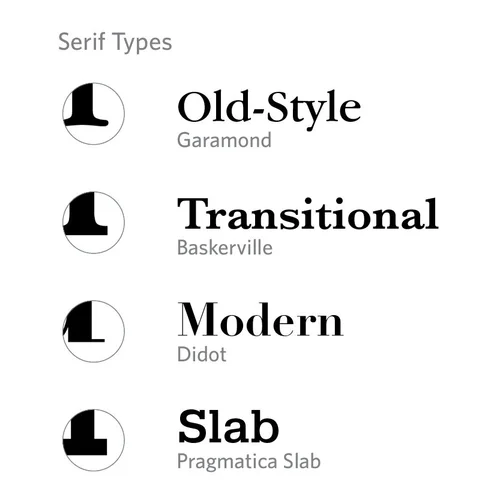
Font Combination: A Guide To Pairing Fonts For Your Designs
When you look at a logo, what’s the first thing you notice about its design? Probably the color and the font style.
And how well the brand name reads, how beautifully the text supplements the symbol in the logo, all depend on the font style used in the logo.
In short, everything, from the first impression a design creates to how memorable the design remains, depends on the chosen font style.
But, here’s the catch. Every font style has a character of its own. So, when you have to pick a combination of two or more fonts, you should be careful so that the overall impact is as intended.
That brings us to a burning question in the world of graphic design: “How do you combine fonts for a design project?”
But before that let’s get the terminology straight.
Typefaces, Fonts, and Typography
We might end up using the terms typeface, font and typography interchangeably but they mean very different things. And understanding the differences makes it easier for non-designers to communicate with designers.
Add to that, 74% of marketers use visuals in more than 70% of the content they use for marketing. And these visuals often contain both text and imagery. While the imagery is used to draw attention and make an emotional connection, the text supports the imagery and makes sure that messages are communicated clearly.
So, to be sure that you choose the right fonts and font combinations to establish the message of your design, let’s talk about some fundamental terms.
Typeface
“Typeface” refers to the shapes and styles of each alphanumeric character. And within typefaces, you can have classifications like serif, sans-serif, script, and decorative.
1. Serif typefaces
They have a serif or a small stroke extending out of the letter. Times New Roman, for example, is a serif typeface. Within serif typefaces, there is old style, transitional, modern, and slab serif.
In old-style serif typefaces, the strokes of the letters are all of nearly the same thickness but the serifs are thin and pointed. In the transitional style, there is a slight difference between thin and thick strokes of the letters and serifs. The modern serif typeface shows the most difference between thin and thick stroke variations. And while these three styles have thin serifs, the slab serif style has serifs that are as thick as the strokes.
2. Sans-serif typefaces
This typeface does not have the serif in the letters. Instead the letters appear clean and minimal. Arial and Helvetica are popular sans-serif typefaces.
Within sans-serif typefaces, the differences based on the stroke widths and letter shapes result in four main classifications: geometric, grotesque, neo-grotesque and humanist.
Geometric sans-serif typefaces appear more rounded and symmetric. Grotesque fonts were some of the earliest types of sans-serif fonts to become popular. The name captures the character of these fonts as some find them to be peculiar considering the uneven stroke width choices for letters.
Neo-grotesque sans-serif fonts are quite similar to the transitional styles in a serif typeface. And finally, the humanist style in a sans-serif typeface resembles calligraphic strokes. These are best known for their legibility.
3. Script typefaces
These look like handwritten text, like Lucida Handwriting, for example. Letterforms are derived from pen-based or brush-based strokes. The variations here are mainly seen based on the slant of the strokes, the height to width variations, and the presence or absence of flourishes as seen in calligraphic styles.
4. Decorative typefaces
When you want to bend the rules and go wild with your typography, display fonts might work well. These have subtle or statement details that add an ornate touch. They might deviate from all the rules you follow with the other three typeface classifications. Some of the strokes might not touch the baseline and sometimes it is the x-height that is varied. But do they ever make an impact!
Fonts
Fonts are subsets of typefaces. Each of the possible variations of a typeface is a font. The variations can be in the weights or thickness of the strokes that make up the letters. These range from medium, to thin, oblique, or bold, and they can also incorporate other visual differences applied to every stroke and every curve of each letter.
Typography
Typography defines how you arrange different typefaces or what types of fonts you combine to create an overall composition. The spacing between each letter, size variations, and other aspects are combined in such a way that the legibility and the appearance of the text are balanced.
So, when we talk about combining fonts today, we’ll tell you how to bring different typefaces within the same frame and also how to show variations within the same typeface.
Font Combination: Why You Should Combine Fonts
Maybe you’ve either purchased a font or chosen a free one that looks really good. And you are all set to design your ad or social media posts. Is it not enough if you just use the same font in different sizes and color variations? While it does look easy to work with just one font, there are two reasons why you shouldn’t:
• Lack of difference in font styles might make the design look monotonous
• Not all fonts are legible when scaled down
Just like musical notes sound better with ups and downs, designs look better with subtle variations in font styles.
Font Combination Tips for Non-designers
So, how do you make these fonts and typefaces work harmoniously to deliver the intended message with clarity? Let’s find out.
1. Outline the purpose and define the visual hierarchy
Before you even begin choosing typefaces and font variations within them, segregate your copy for the design into sensible sections. For instance, header, body text, focus words, CTA, additional details, and subheads to maintain the flow.
By identifying the objective of each text section you are setting up the visual hierarchy for your design. Which part of the copy draws attention first and which text the customers will be reading towards the end depend on how well you define the visual hierarchy.
Here, the header should be in a font with a strong character that draws attention. For the body text, you need something that is legible even when you have to scale down. The subheads can be just a bold or oblique variation of the body text but in a visibly larger font size. And for the keywords, you can use a bold font within the chosen typeface.
2. Go with the classic contrast of serif and sans-serif
One of the most common variations that designers like to use is to highlight contrast by combining serif and sans-serif typefaces.
An example of Font Combination in a Billboard Design
Designed by Kimp
When you have a good eye for details, you can easily pick the right typefaces within each classification by comparing the letterforms. Typefaces whose letterforms appear more or less similar look harmonious when combined.
When you have a long copy, you can use something bold like slab-serif for the header. And since there will be many lines of text you need to focus on legibility. So, you can go with something cleaner like a neo-grotesque sans-serif typeface. This contrast particularly works with digital designs like social media posts or even digital ads and email newsletters.
However, for print-based designs, legible serif fonts are mostly chosen for the body text and the sans-serif typefaces are reserved for headers. In this case, a bold grotesque sans-serif will make a great choice for headers. Old-style serif fonts with their easy-flowing letterforms look good in the body text.
Kimp Tip: One of the most common places where you will find this combination of serif and sans-serif fonts will be a logo design. Your brand name and the tagline or the text that says what your brand does can be in contrasting typefaces so that the details of each stand out. Just make sure that you align the personality of the chosen typeface with that of your brand.
Finding it difficult to figure out the right font combination for your logo design? Set up a call with the Kimp team today to find out how an unlimited design subscription can help you design a stunning logo for your brand.
3. Establish contrast without ambiguity
Clashes in design can occur when all of the fonts you choose are too strong or too weak in their personality to create an effective contrast. For example, you know that grotesque sans-serif and slab serif fonts are both bold and chunky. Using one of these for the header and the other for the body text will cause too much strain on the eyes of the reader.
Both these fonts compete for attention and the message to be conveyed is lost in the battle. Even if you vary the font size or add a bold variation to one of these, it still will not make much of a difference.
Combining fonts within the same family is another popular option. But again, you cannot combine two or more slab serif fonts as they all end up breaking the hierarchy you try to establish.
4. Getting the number right
So how many typefaces should you really combine? One can be too plain. Three is overwhelming. Two is just right. There is a striking difference in the appearance of each typeface family. So, when you try to combine three or more of them, it might lead to visual clutter.
An example of Font Combination in a Logo Design
Designed by Kimp
Kimp Tip: Combine just two typefaces and then pick similar font families within each for the best results.
5. For a fuss-free design stick with one typeface
If you are finding it difficult to put together two typefaces for your design, it is alright to work with just one typeface. You can use the variation in stroke weights to achieve your preferred effect.
An example of Font Combination in a Social Media Design
Designed by Kimp
In the above example, the message is clear and legible due to the sans-serif font used. And to emphasize the focus word, uppercase has been used. Color and stroke weight variations are used to draw attention to the CTA. The overall design looks coherent while the different sections or the different roles of the text snippets are clearly established.
6. Use size to define reading order
While creating contrasts one of the main objectives is to clearly establish the reading order of the different text sections. If there is a particular section that you want readers to read last, use smaller font sizes for this. This does not indicate that these are text sections with the least importance. In most cases, they tend to be information that should linger on the minds of the reader.
An example of Font Combination on a Business Card Design
Designed by Kimp
Most designers use this tactic for CTAs or contact information in print ads. In the above business card for example, when the last text that the reader sees will be the social buttons, this is most likely to stay on their mindr. As a result, they might look for the business on social media and follow it too.
You can always add an accent button or choose a different color so that the smallest text section does not go unnoticed.
7. Do not ignore the mood of your message
While you are busy focusing on the contrast and legibility aspects you cannot ignore the mood or the emotional personality you need to create for your design. Take a look at the example below.
An example of Font Combination in an Infographic Design
Designed by Kimp
For this infographic, the header could have been in a chunky serif font to draw attention. But the use of an elegant script typeface is what makes the design look complete. The header should basically tell the viewer what the image is about.
In this case, it is an infographic with a lot of text. So, if the header manages to instantly trigger the intended emotional response, there are better chances of the viewer paying attention to the rest of the text.
8. Show contrast through kerning adjustments
When you cannot show too much contrast in the size of the font or the weights, you can always play with the kerning. When you increase the spacing between the letters, the text section draws attention even if you use neutral typefaces and thinner weights.
An example of Font Combination in a Sign Design
Designed by Kimp
In the above image, for the names of the bride and groom, the text size has been increased so as to draw attention to the section. But this does not break the minimalistic approach of the design because of the wise use of kerning.
Kimp Tip: As you try to expand or bring together the letters in the text, be sure that there is no compromise on legibility. Too much spacing between the letters when the font size is already too small might weaken the impact or sometimes make it difficult to differentiate between word spacing and letter spacing.
Want to make the most of kerning variations to create statement designs for your social media or print ads? Work with the Kimp team and get all of your designs done with a flat-fee, unlimited design subscription.
9. Use display fonts to add a new dimension
An example of Font Combination in a Business Card Design
Designed by Kimp
When you need a simple logo design or a professional LinkedIn ad, you can always combine serifs and sans-serifs to obtain the desired impact. But have you ever come across a situation where you have used all the right techniques but the design still feels like it is lacking the character you pictured? You are not alone.
When you need to add a little excitement to your design or when you need to create strong personalities like retro effects or eclectic vibes, you can always choose display fonts. These come in all shapes and sizes. Some only have outlines and so they make it easier to let the background dominate the design. And some can be added to make a statement.
10. Show clear size differences
An example of Font Combination in a Ad Design
Designed by Kimp
When you choose font families that look very similar, you need to alter the weights and font sizes to show contrast effectively. Varying the size by just two or three points will not make much of a difference. This works for keyword highlights but not for header and body text distinction. You need this distinction to create a visual hook that grabs attention and gets people to stop and look at your design.
Design Inspirations for Font Combination
To better understand the rules we’ve mentioned above, and to know where to use them, here are some design inspirations for you:
An example of Font Combination in an Email Design
Source: Really Good Emails
In the above email from Cracker Barrel, the pretty script font perfectly aligns with the Valentine gifting theme of the email. The large font size reels you in as you open the email. And for the actual message, a fuss-free sans-serif font has been used to make the whole text easy to read.
An example of Font Combination in a Logo Design
Source: Wikimedia
The most popular example of combining serif and sans-serif fonts for a visual balance is the Louis Vuitton logo. The serif font captures the legacy of the brand and the sans-serif font gives it a contemporary touch to show how the brand has been evolving.
An example of Font Combination in an Ad Design
Source: Facebook Ad Library
The above ad is an example of choosing font styles to maintain brand consistency. When you choose fonts to pair for your ads, one of the fonts can be the same typeface as that in your logo design.
An example of Font Combination in a Package Design
Designed by Kimp
Combine the Perfect Fonts for Your Designs With Kimp Graphics
The font combinations you choose can make or break your designs. You need to be sure that they create contrast without causing too much of a clash in the visual appearance of the text in the design. Putting the font styles together might feel like the toughest part of the design. That’s why it pays off leaving the job to designers. And when you are working with an unlimited graphic design service like Kimp, you can always provide design feedback and request revisions if you are not happy with the chosen font combination for your designs.